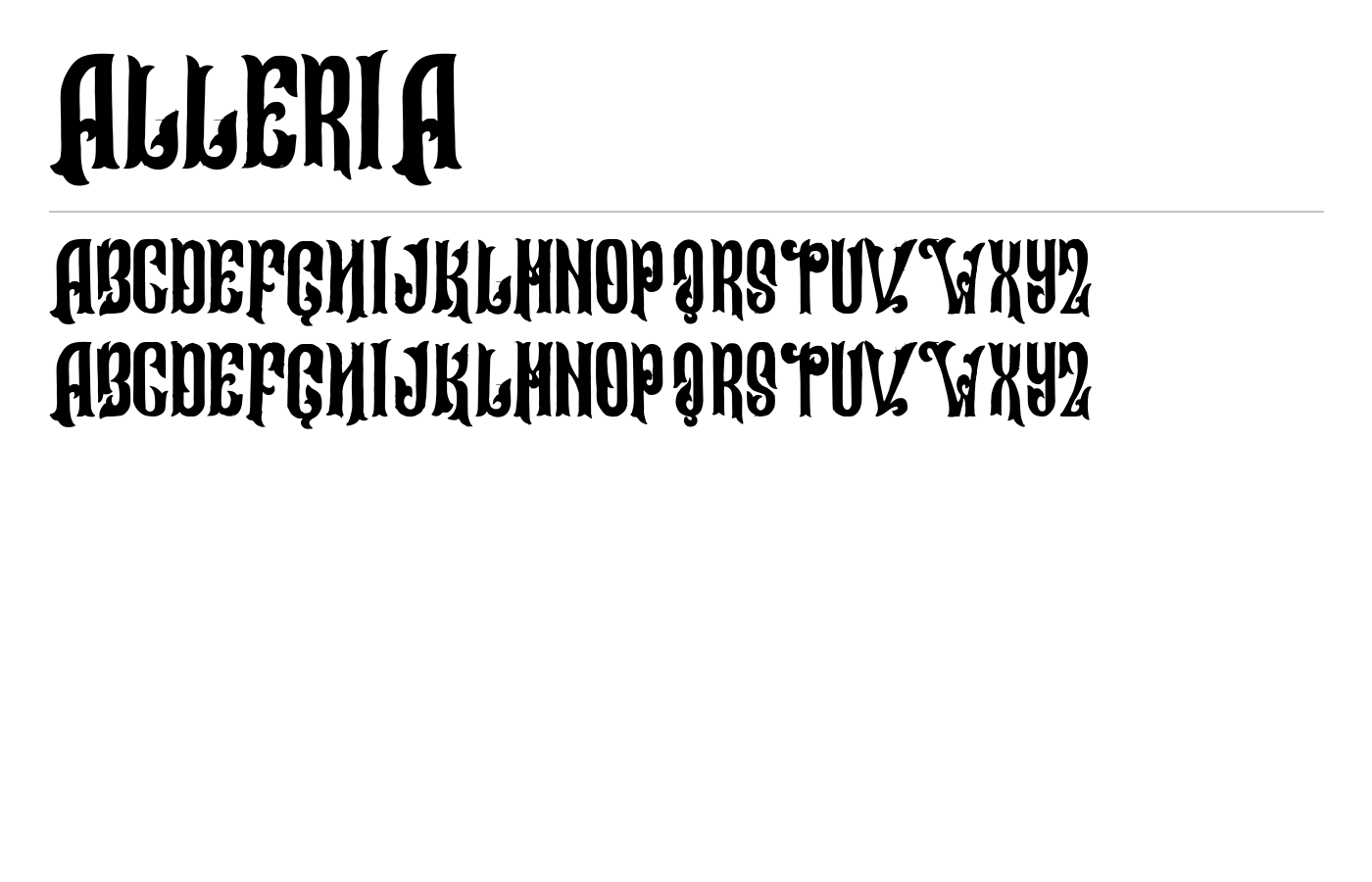
Alleria is a bold, condensed serif font with a distinctive vintage flair, featuring sharp, bracketed serifs and dramatic stroke contrast that add to its ornate and slightly gothic character. Its tall, tightly spaced letterforms with unique decorative elements create a strong, commanding presence, making it ideal for eye-catching logos, posters, or headlines where a bold, nostalgic style is desired. This font brings a blend of elegance and vintage charm, perfect for brands seeking a memorable and artistic touch.
Alleria Font